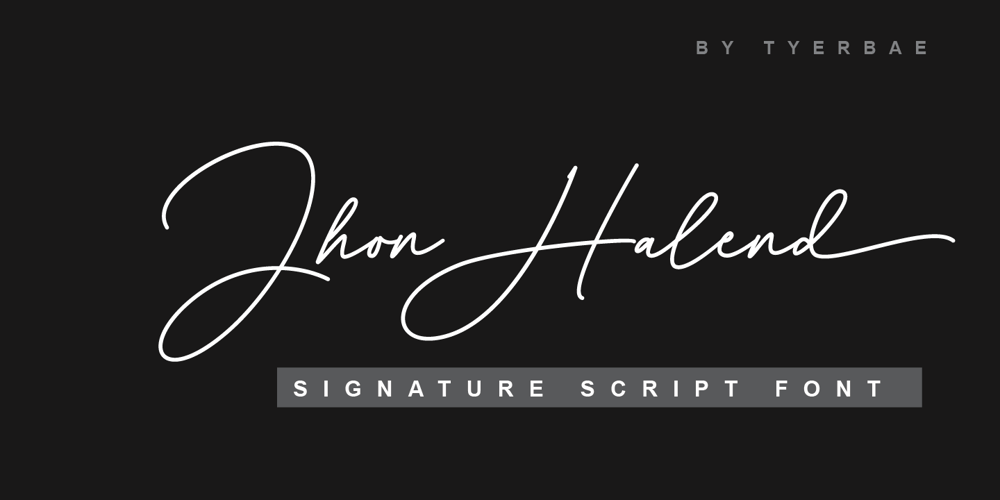
Jhon Halend
Jhon Halend font
Jhon Halend Font Family was designed by Iqbal Pauji and published by Typebae. Jhon Halend contains 2 styles and family package options. Jhon Halend is the perfect signature font, featuring a natural and stylish flow that showcases elegant tails at the beginning and end of each letter. It provides a binding element, allowing specific letter combinations to flow seamlessly for a more natural and authentic appearance, making it suitable for various projects that require a natural handwriting touch.To use beginning and ending swashes (tail), you don’t need to use software that supports opentype, because we have made it separately so it’s very easy to use.Files included: Jhon Halend-Regular Jhon Halend-Tail Feature: Ligature, Stylistic Alternate, Multilingual and PUA encoded.